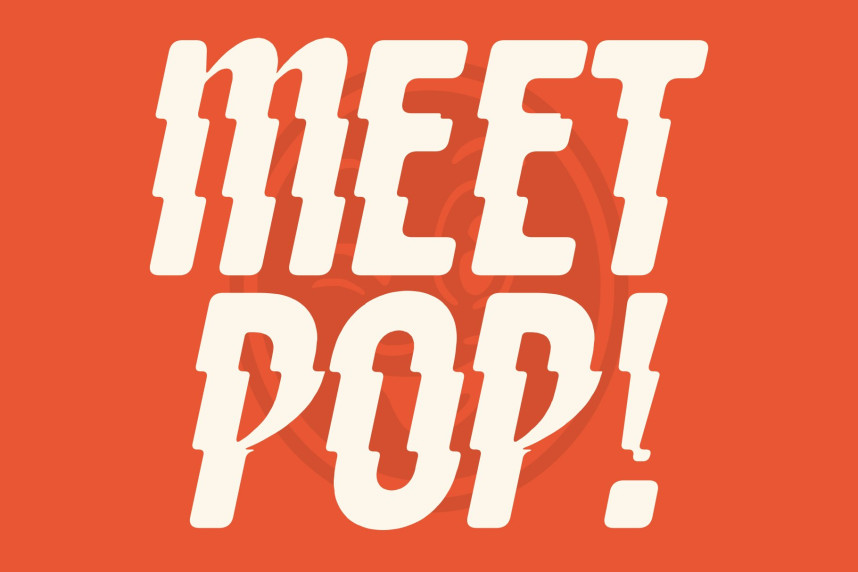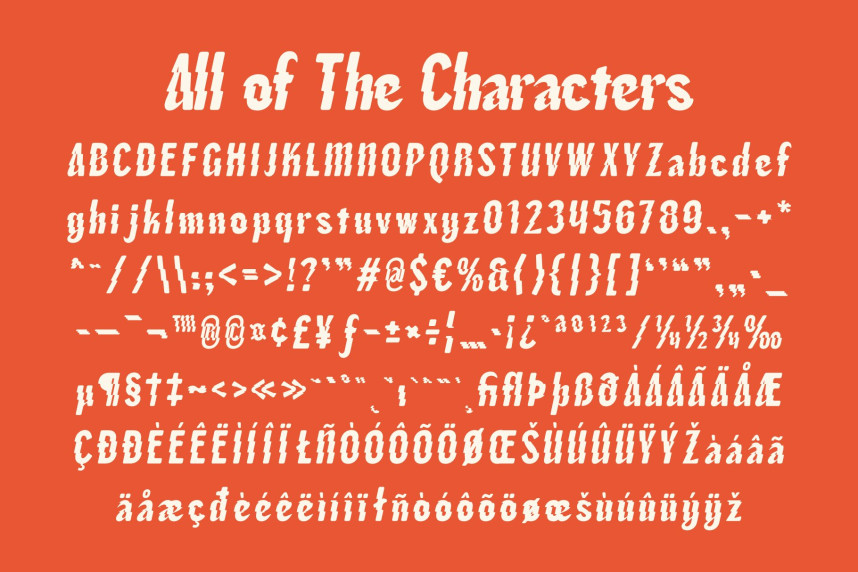
CS Aquba Rippled Font
CS Aquba Rippled Font – Modern Sans Serif Display Font: Where Bold Energy Meets Liquid Wave Motion
Bold Contemporary Forms with Fluid Visual Rhythm
This is a modern sans serif display font designed with bold contemporary forms and energetic visual flow. Its strong structure and dynamic proportions create a lively modern appearance filled with movement, confidence, and expressive character. Every letter feels bold and immersive, making the font perfect for eye-catching display compositions and energetic creative projects.